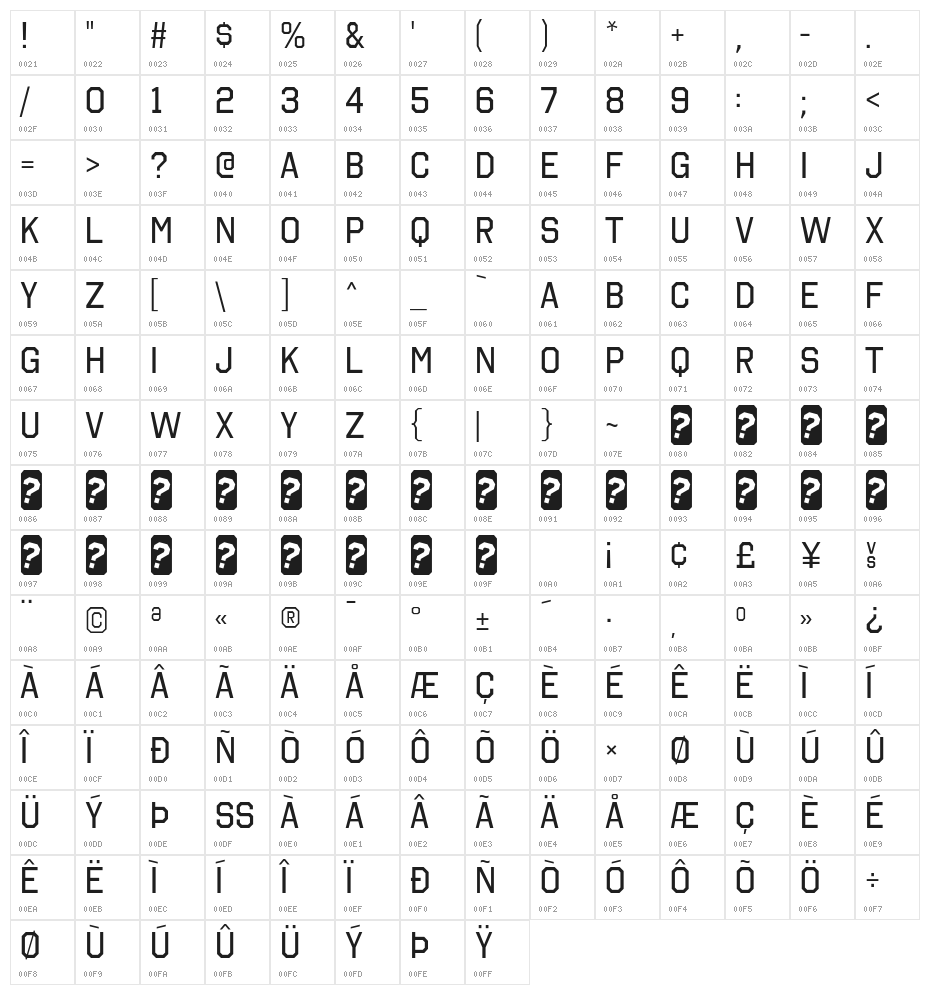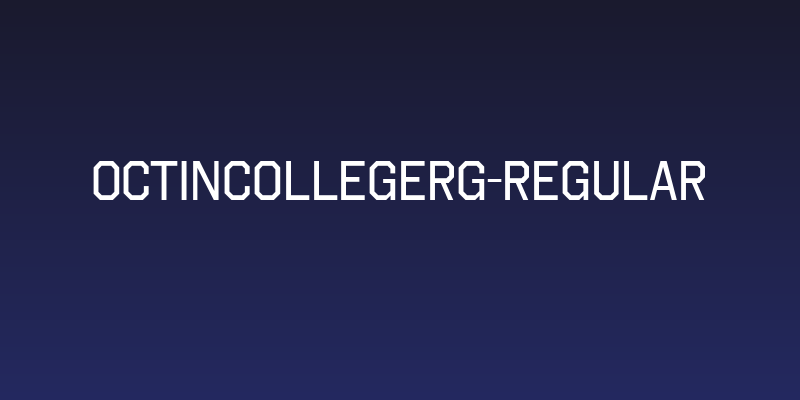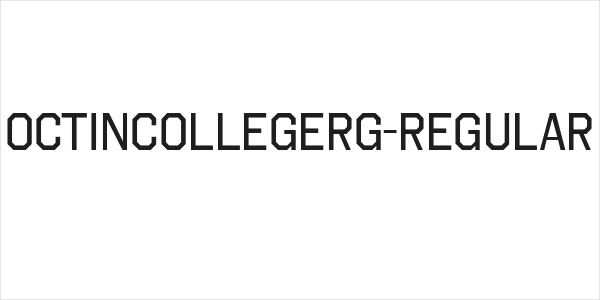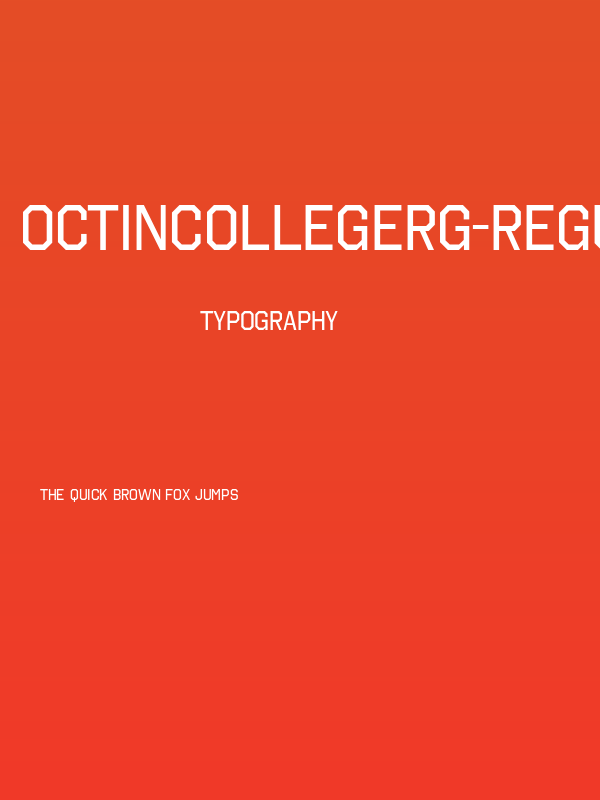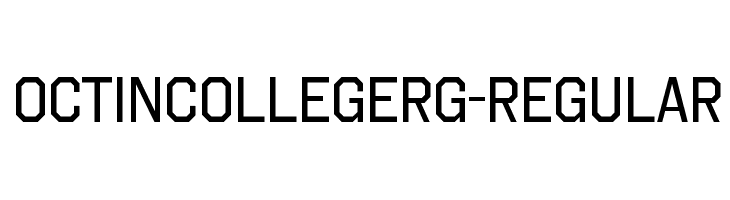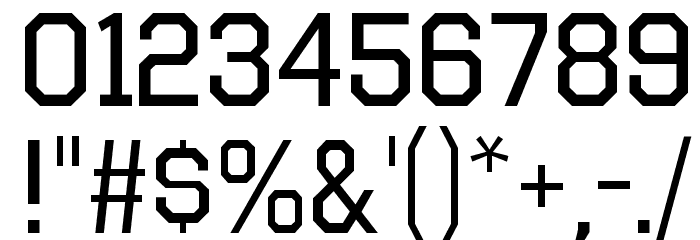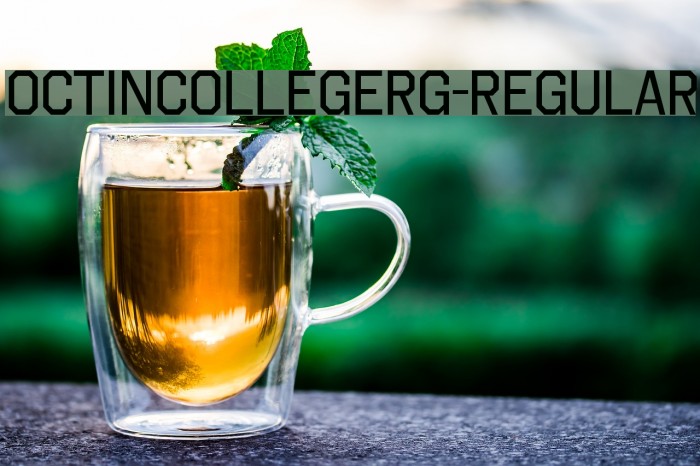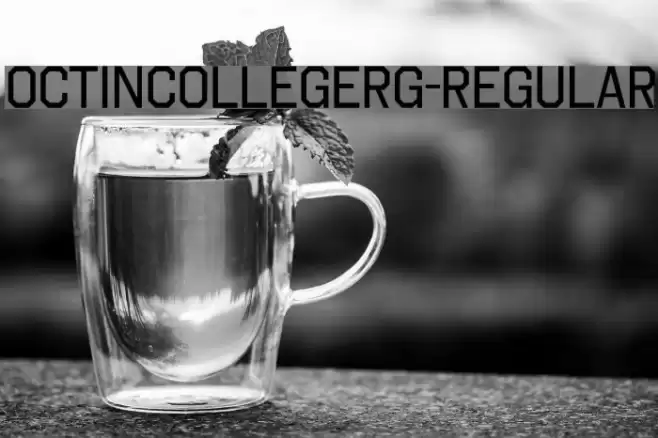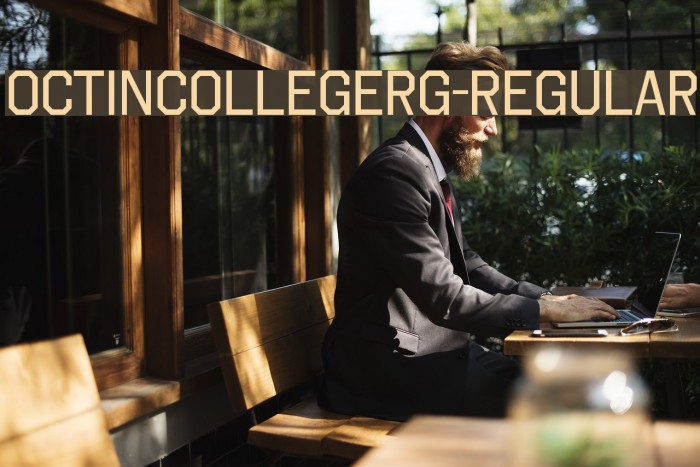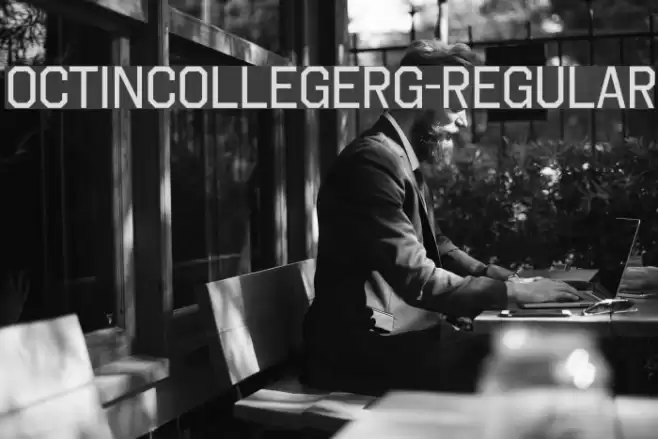
OctinCollegeRg-Regular Font
| Projets proposés | Ideal for sports team branding, university merchandise, posters, and headlines that require a strong and authoritative look. |